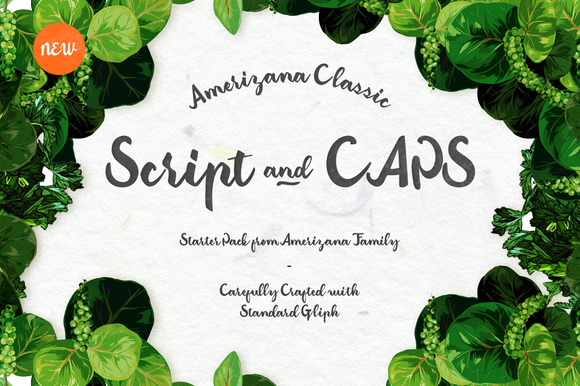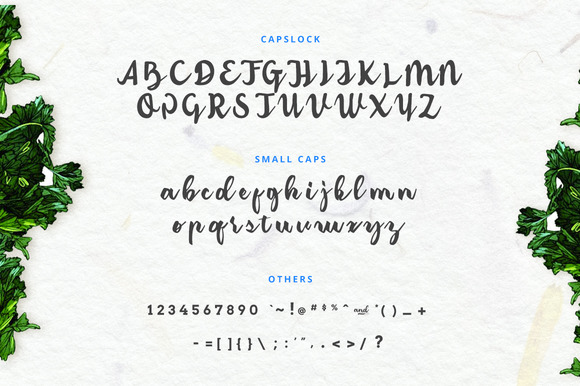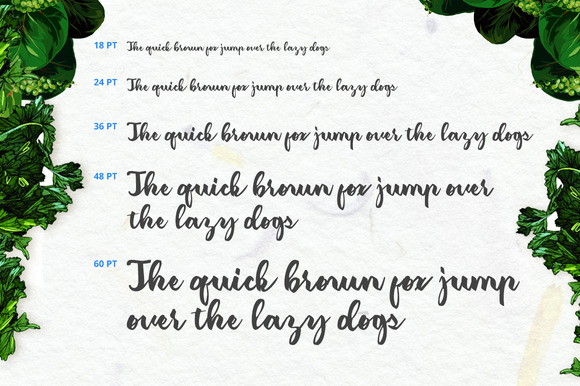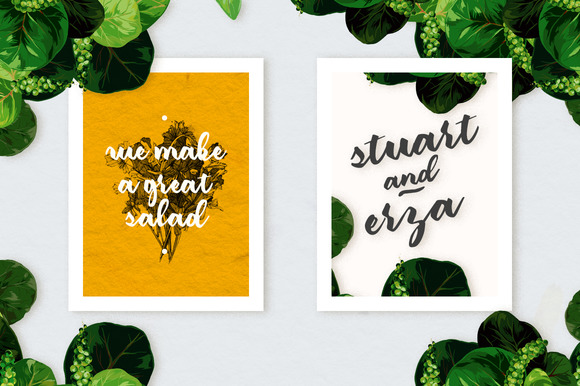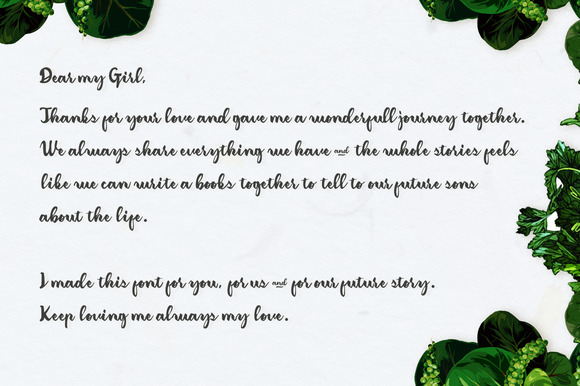
Amerizana Font: Where Handwritten Charm Meets Design
Have you ever found yourself scribbling down a brilliant idea in a notebook, only to realize that the messy handwriting you’ve grown to love is the perfect representation of your creative energy? For many designers, that moment of inspiration is where the magic happens. But when it comes to bringing those ideas to life, the right font can make all the difference.
Enter the Amerizana Font, a carefully crafted handwritten font designed to capture the essence of that creative spark. Created by Ease Type, this beautiful font is perfect for adding a touch of personality to your designs, from typography-heavy projects to branding and marketing materials. With its unique charm and character, the Amerizana Font is a valuable addition to any designer’s toolkit, offering endless possibilities for creative expression.
- Unique Characteristics: This font features a unique blend of Latin and Cyrillic scripts, with a modern and sleek design. It includes a wide range of language support, making it ideal for international branding and design projects.
Amerizana Font Review
Overall, I think the Amerizana Font has some great qualities that make it a solid choice for designers. ✨ Here are a few things that stood out to me:
- Unique aesthetic**: Amerizana Font has a distinct, elegant look that sets it apart from more common fonts.
- Wide language support**: This font supports a wide range of languages, making it a great option for global brands or projects.
- High-resolution support**: Amerizana Font looks great at various resolutions, from small mobile screens to large-format prints.
However, there are some limitations to consider. ⚠️ Here are a few things that might give you pause:
- Font weight limitations**: Amerizana Font only comes in a few weights, which might limit your design options.
- Not ideal for body text**: While the font is great for headings and titles, it might be a bit too ornate for body text.
- Limited italics and bold options**: The italics and bold versions of the font are not as refined as the regular version.
Overall, I think the Amerizana Font is a solid choice for designers who want a unique, high-end look for their projects. While it has some limitations, it’s a great option for branding, titles, and other design elements where a distinctive font is key.
Tips and Tricks
To get the most out of the Amerizana font, try the following:
Use it for titles and headings to add a touch of elegance to your designs.
Pair it with bold fonts for a striking contrast.
Experiment with different font sizes and colors to create a unique look.
The Amerizana font is ideal for:
Wedding invitations and stationery.
Business cards and marketing materials.
Blog posts and social media graphics.
Alternatives to Amerizana Font for Designers
Playfair Display is a luxurious, high-end serif font perfect for creating elegant and sophisticated designs. It’s ideal for use in headings, titles, and other prominent text elements. When to use: Luxury brands, high-end magazines, and premium product packaging.
Comparison to Amerizana Font: While both fonts are elegant, Playfair Display is more luxurious and ornate, making it suitable for high-end designs. Amerizana Font, on the other hand, has a more modern and clean aesthetic.
Pacifico is a beautiful, cursive script font that adds a touch of elegance and sophistication to any design. It’s perfect for use in invitations, wedding designs, and other creative projects. When to use: Wedding invitations, greeting cards, and creative branding.
Comparison to Amerizana Font: Pacifico has a more organic and handwritten feel, while Amerizana Font is more modern and digital. Pacifico is ideal for designs that require a more personal and emotional touch.